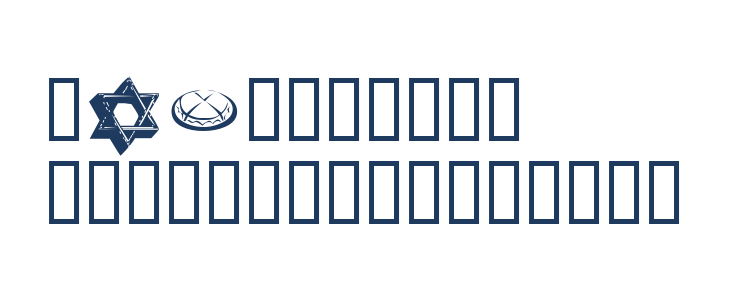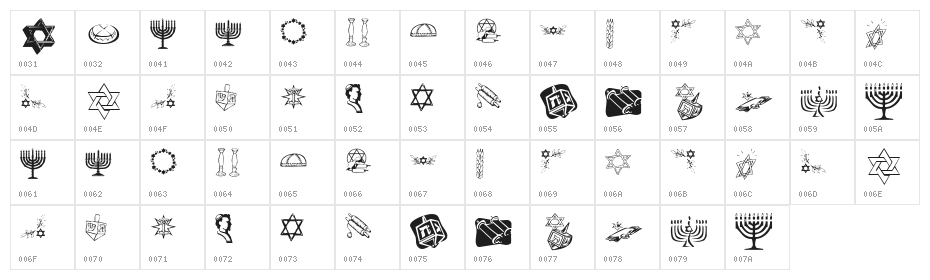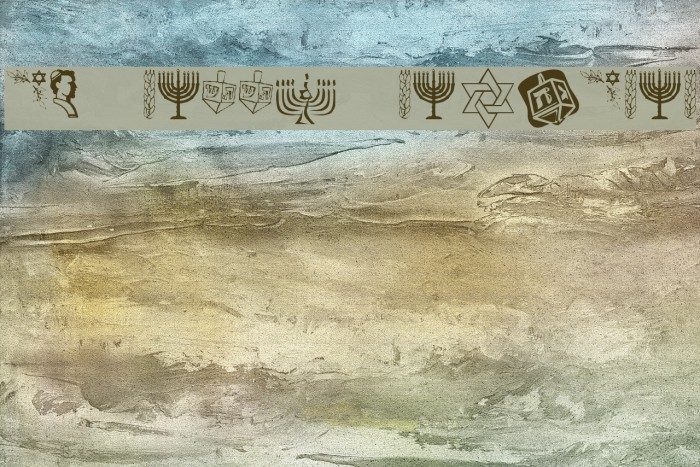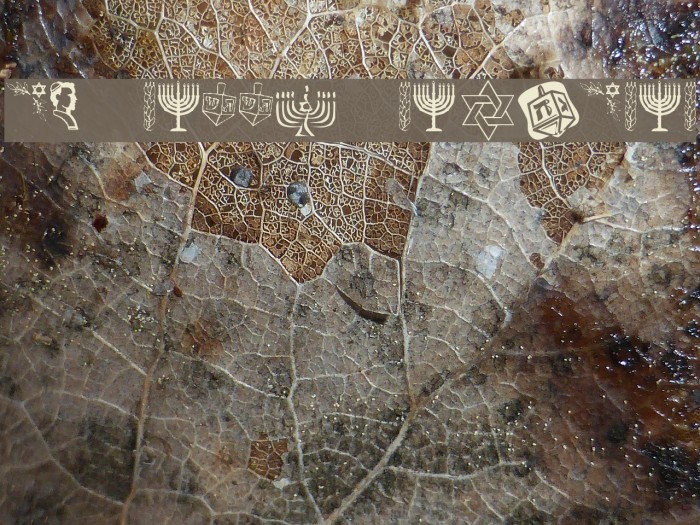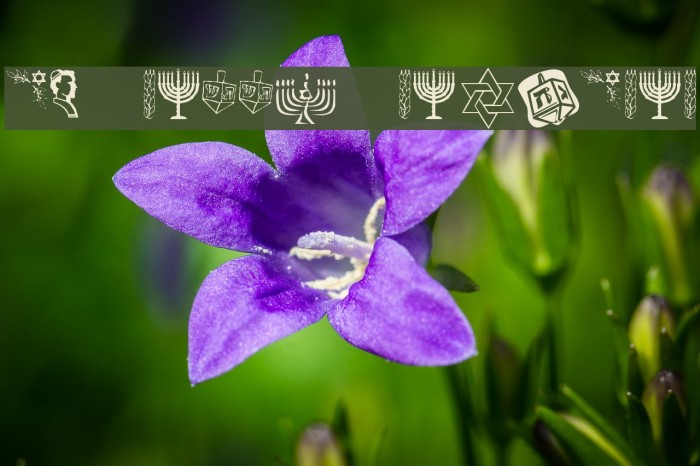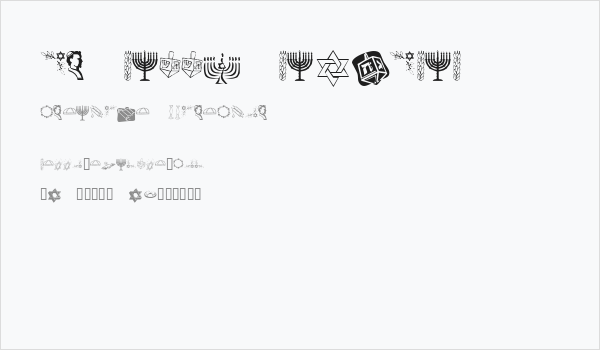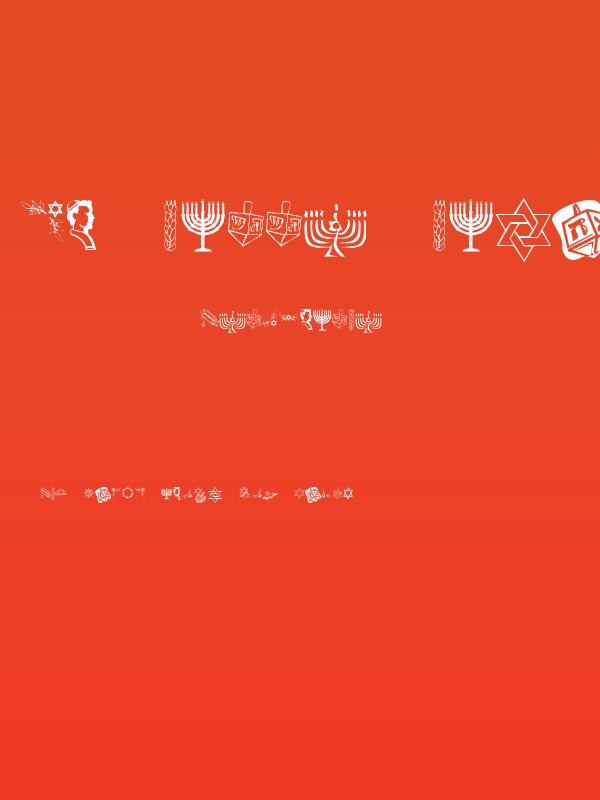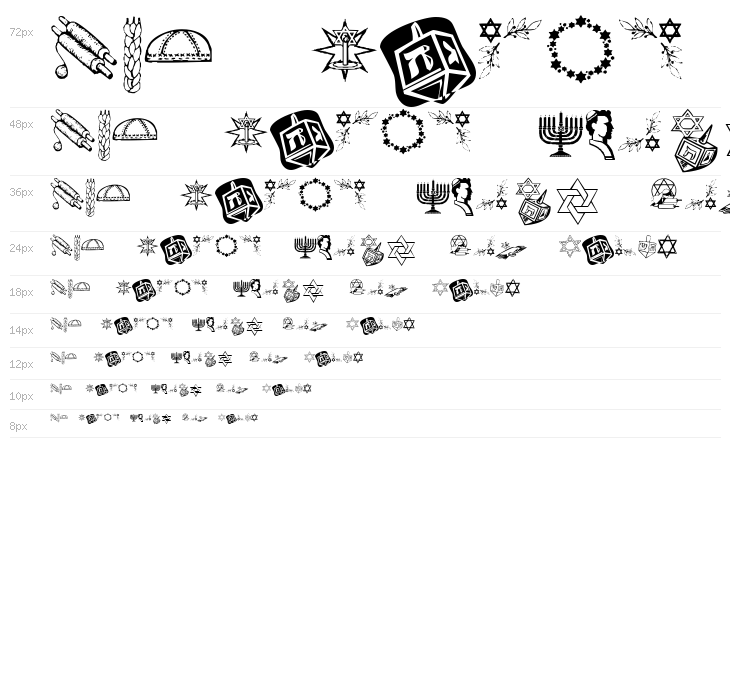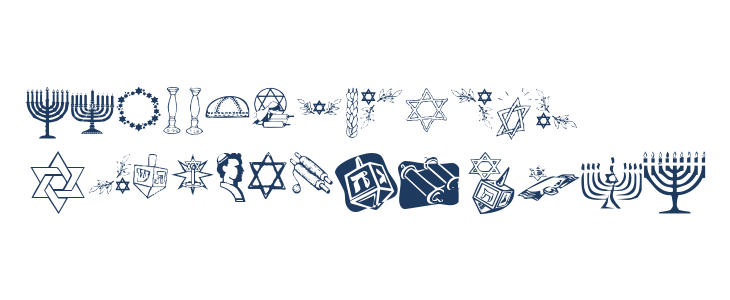
KR Happy Hanukhah Font
KR Happy Hanukhah Description
A decorative symbol font featuring Hanukkah and Jewish-themed icons such as menorahs, Stars of David, dreidels, Torah scrolls, candles, and other related imagery. Each character is replaced by a unique, detailed illustration relevant to Jewish culture and Hanukkah celebrations.
| Overall Style | Decorative, Festive, Thematic |
| Use Case | Decorative elements, Themed graphics, Event materials |
| Proposed Projects | Holiday cards, event flyers, educational materials, festive banners, invitations, themed crafts. |